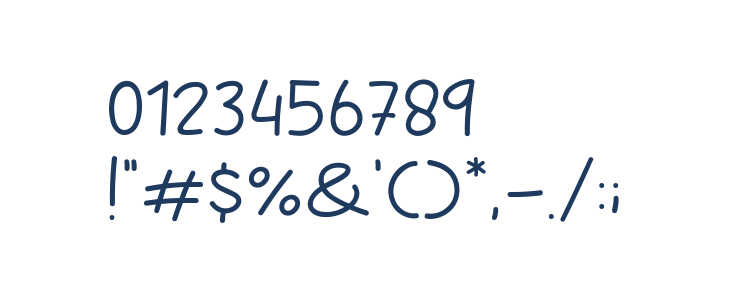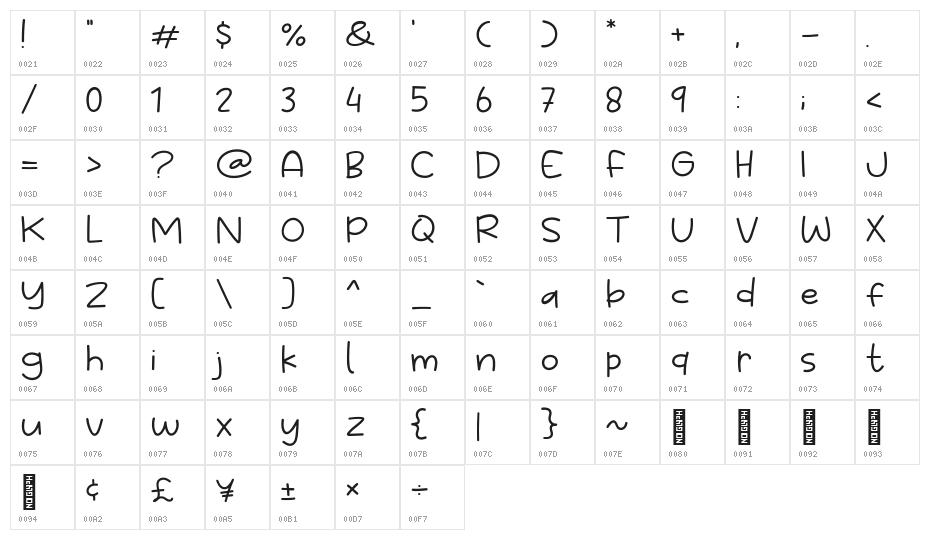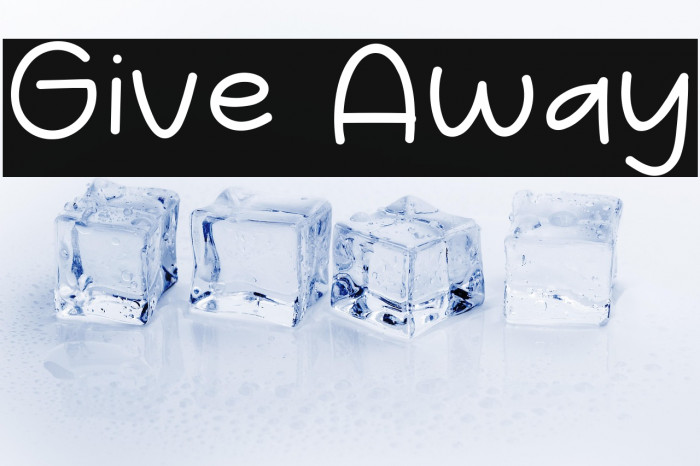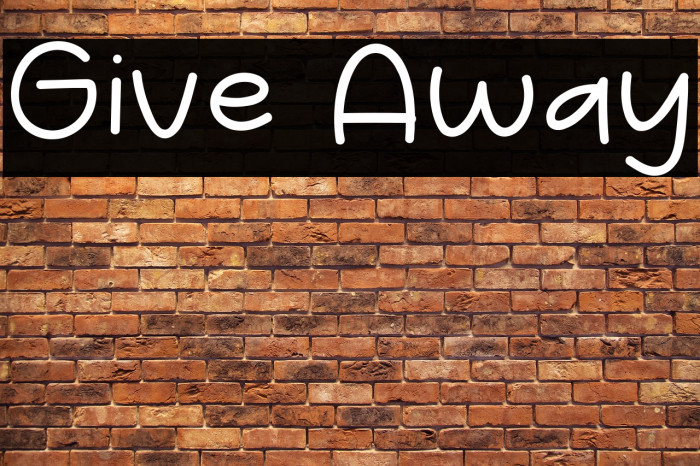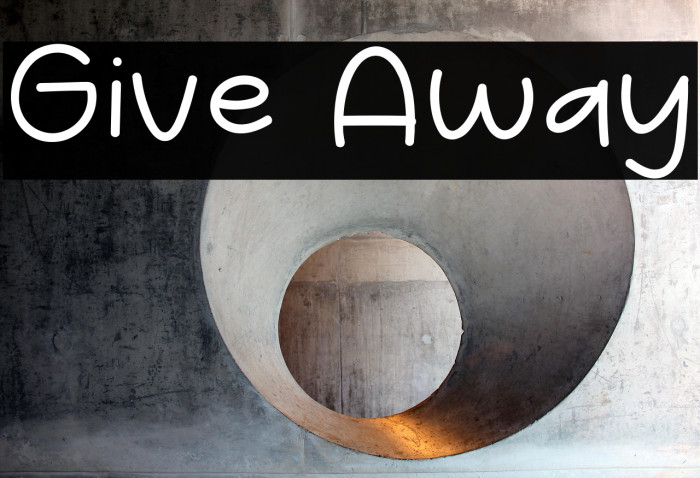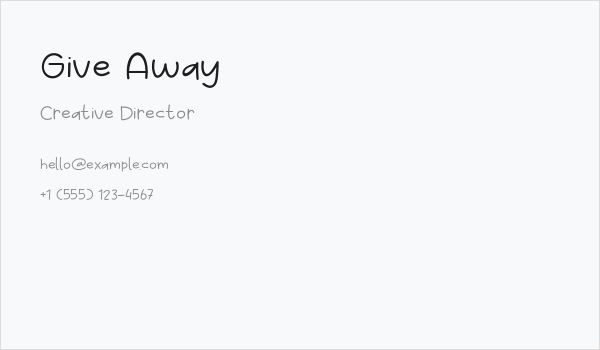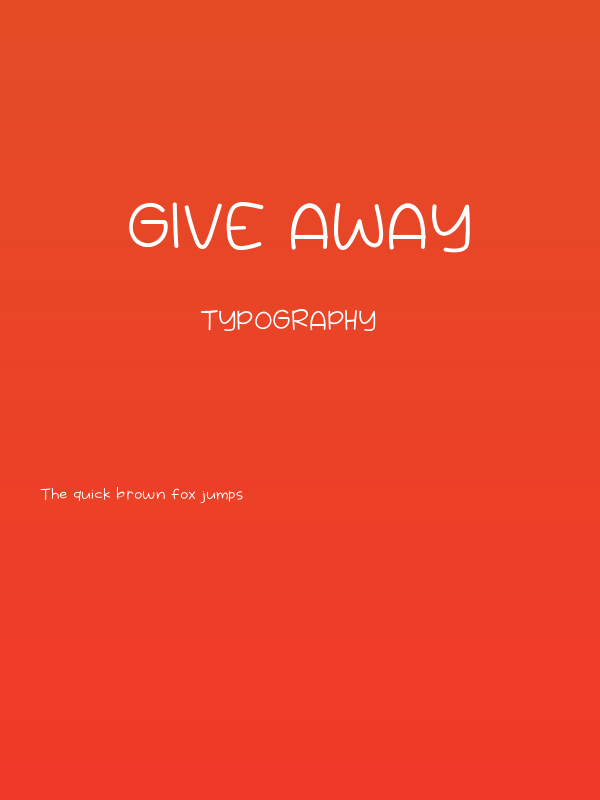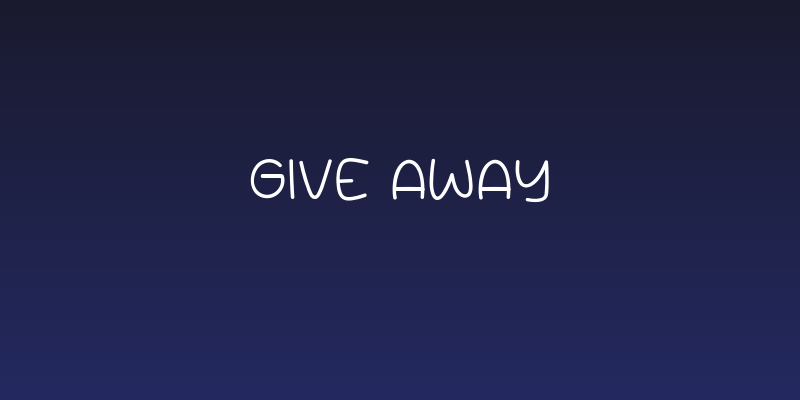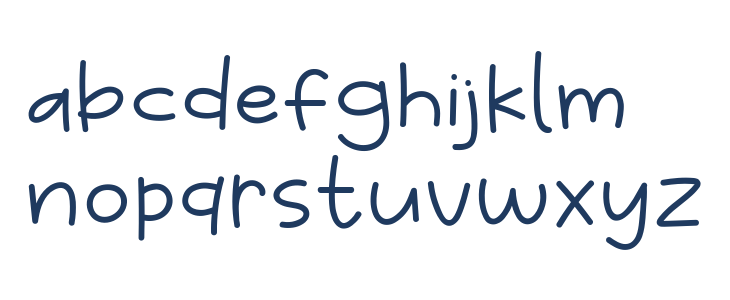
Give Away Font
Give Away Description
This playful and casual font features a handwritten style with smooth, rounded edges and a friendly appearance. The characters are slightly irregular, adding a personal touch that mimics natural handwriting. The uppercase letters maintain a consistent height, while the lowercase letters have a gentle, flowing quality. Numbers and special characters are designed to match the overall informal aesthetic, making this font ideal for projects that require a warm and approachable feel.
| Use Case | Headlines, Informal text, Personal projects |
| Proposed Projects | Ideal for children's books, greeting cards, personal blogs, and informal branding. |